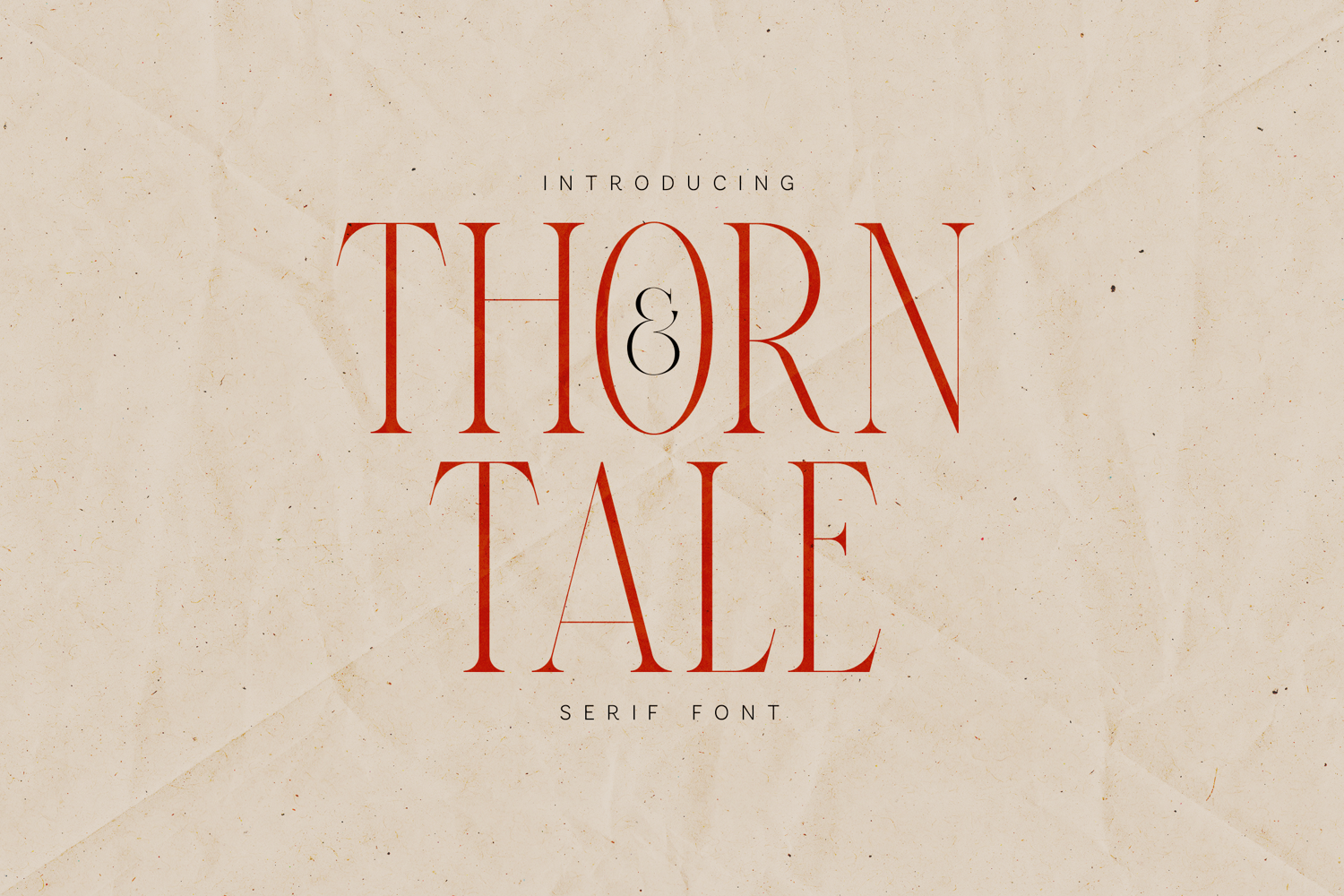
THORN TALE Elegant Serif Font
Thorn Tale is an elegant serif font inspired by classic literature, historical printing, and refined editorial typography. Featuring sharp serifs, high contrast strokes, and graceful proportions, this typeface blends timeless sophistication with a subtle vintage character.
Designed for storytelling and expressive design, Thorn Tale is ideal for book covers, novels, magazines, posters, branding, luxury packaging, invitations, and editorial layouts. Its refined letterforms feel poetic and authoritative, making it perfect for projects that require elegance, depth, and narrative presence.
Thorn Tale is crafted for designers who value classic beauty, thoughtful details, and serif typography that feels rich, literary, and enduring.